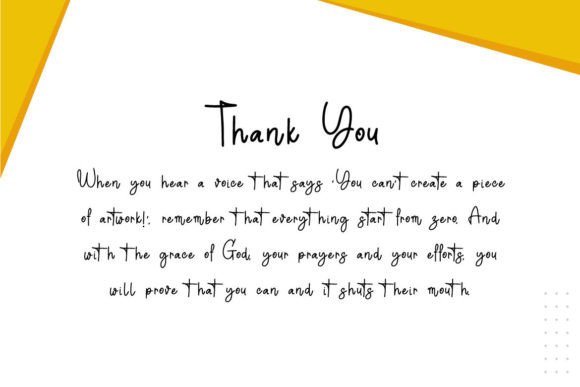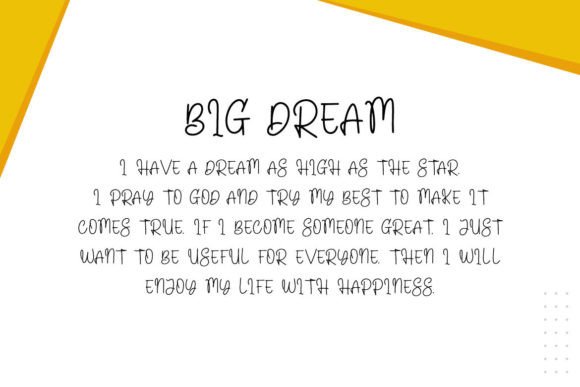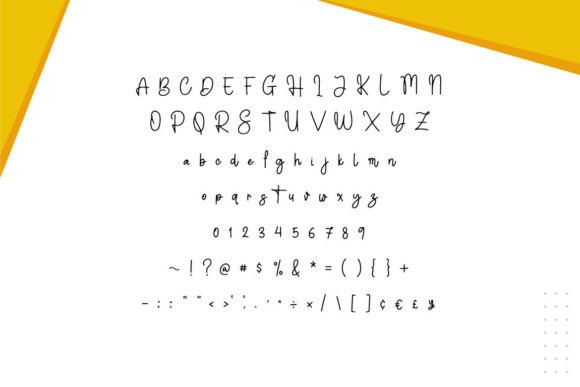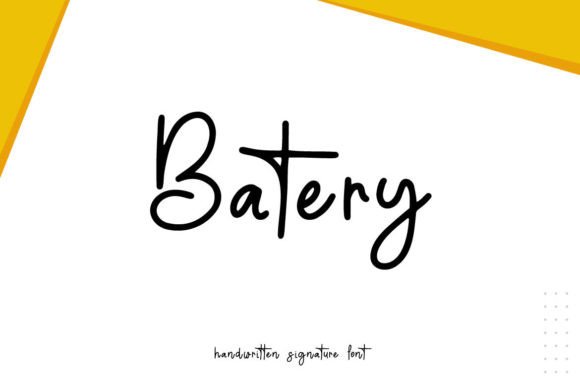
Batery Font: The Perfect Addition to Your Crafty Ideas
Are you a designer or crafter looking for a unique and modern font to add a personal touch to your projects? Look no further than Batery Font, a quirky handwritten signature font that’s sure to take your crafty ideas to the next level. In this article, we’ll dive into the world of Batery Font, exploring its features, benefits, and uses, as well as provide tips on how to make the most of this versatile font.
What is Batery Font?
Batery Font is a modern, quirky handwritten signature font designed to add a touch of personality to your projects. With its unique and playful style, Batery Font is perfect for crafty ideas, DIY projects, and creative endeavors. This font is ideal for designers, crafters, and makers who want to add a personal touch to their work.
Features of Batery Font
Batery Font boasts a range of features that make it a standout font for crafty projects. Some of its key features include:
- Handwritten style: Batery Font has a unique, handwritten style that’s perfect for adding a personal touch to your projects.
- Quirky and modern: This font has a quirky and modern vibe that’s sure to make your projects stand out.
- Signature font: Batery Font is designed as a signature font, making it perfect for adding a personal touch to your work.
- Versatile: This font can be used for a range of projects, from DIY crafts to digital designs.
Benefits of Using Batery Font
So why choose Batery Font for your crafty projects? Here are just a few benefits of using this versatile font:
- Adds personality: Batery Font adds a personal touch to your projects, making them stand out from the crowd.
- Easy to use: This font is easy to use and can be incorporated into a range of projects, from digital designs to handmade crafts.
- Unique style: Batery Font has a unique style that’s sure to make your projects look fresh and modern.
- Perfect for crafty ideas: This font is ideal for crafty ideas, DIY projects, and creative endeavors.
Using Batery Font in Your Projects
So how can you use Batery Font in your projects? Here are a few ideas to get you started:
- DIY crafts: Use Batery Font to add a personal touch to your DIY crafts, such as handmade cards, gift tags, and decorations.
- Digital designs: Incorporate Batery Font into your digital designs, such as social media graphics, blog posts, and website headers.
- Signs and displays: Use Batery Font to create eye-catching signs and displays for your craft fairs, markets, or events.
- Packaging and labels: Add a personal touch to your packaging and labels with Batery Font.
Tips for Getting the Most Out of Batery Font
Here are a few tips for getting the most out of Batery Font:
- Experiment with colors: Try pairing Batery Font with different colors and textures to create a unique look.
- Mix and match: Combine Batery Font with other fonts and styles to create a distinctive look.
- Use it sparingly: Use Batery Font sparingly to add a touch of personality to your projects, rather than overwhelming them.
In conclusion, Batery Font is a modern, quirky handwritten signature font that’s perfect for adding a personal touch to your crafty ideas. With its unique style, versatility, and ease of use, Batery Font is a must-have for designers, crafters, and makers. So why not give it a try and see the difference it can make in your projects?